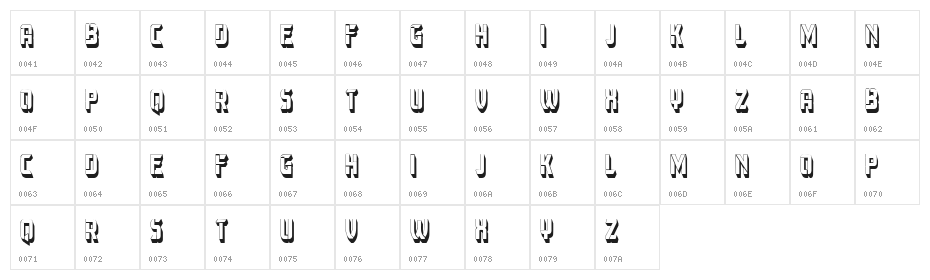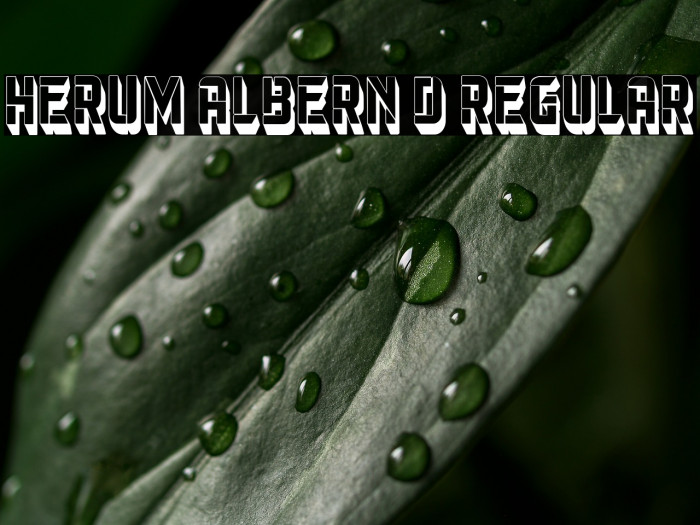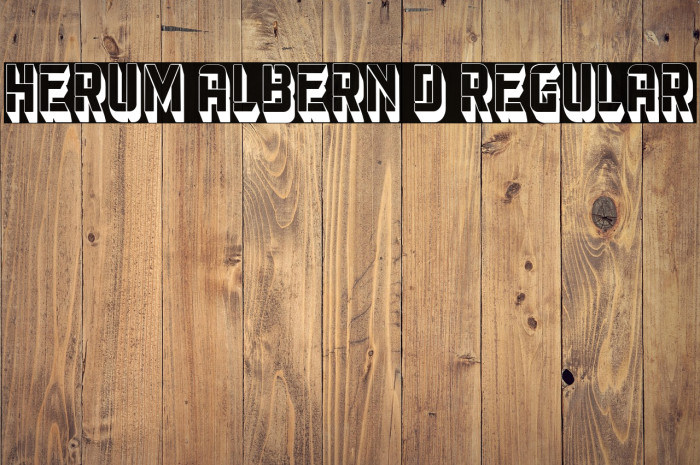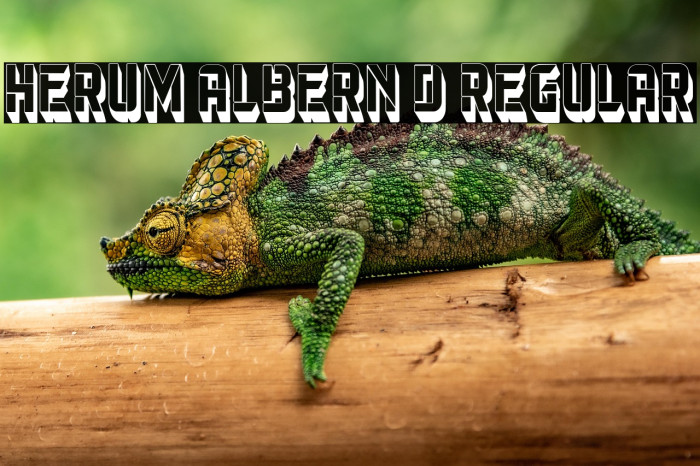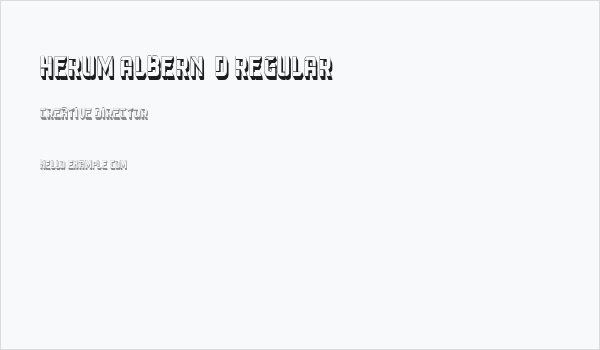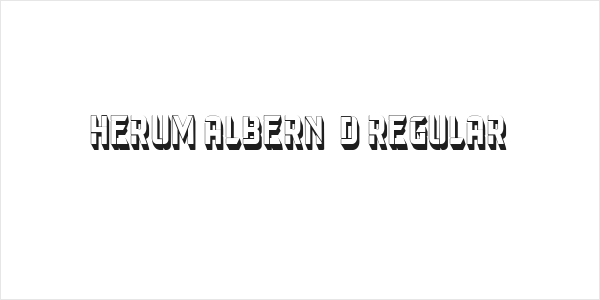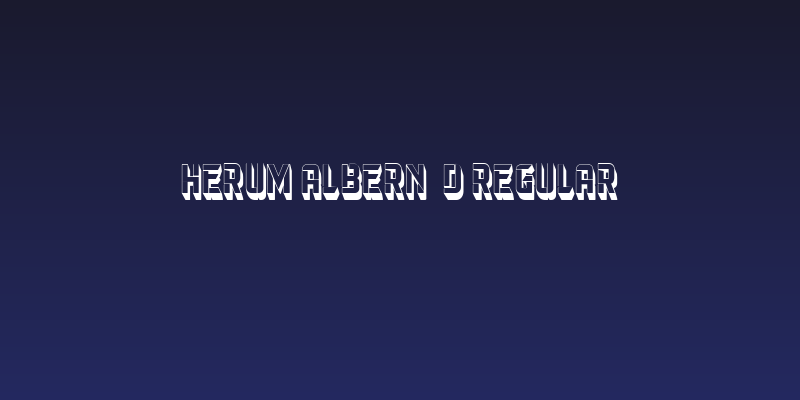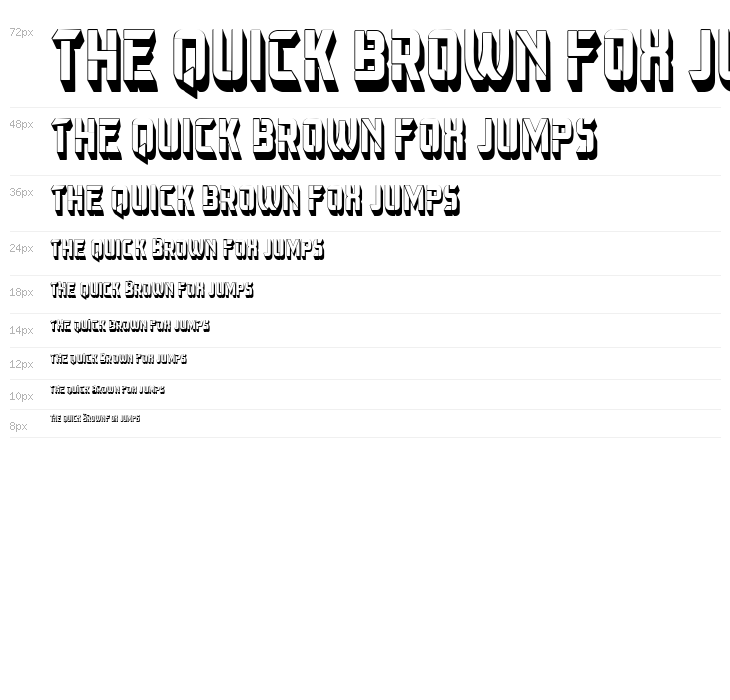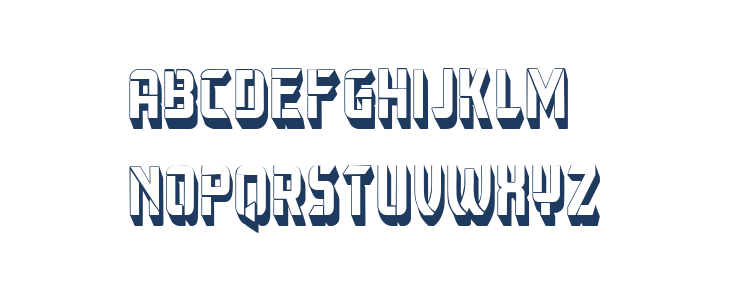
Herum Albern 3D Regular Font
Herum Albern 3D Regular Description
This font features a bold, three-dimensional design that gives each character a striking, shadowed appearance. The letters are uppercase and have a blocky, geometric style with sharp angles and clean lines. The 3D effect is achieved through a consistent use of shading, creating a sense of depth and dimension. This font is highly decorative and eye-catching, making it ideal for designs that require a strong visual impact. The characters are evenly spaced, ensuring readability while maintaining their bold presence. The overall style is modern and dynamic, suitable for projects that aim to stand out.
| Proposed Projects | Ideal for posters, headlines, logos, and any design requiring a bold, impactful typeface. |